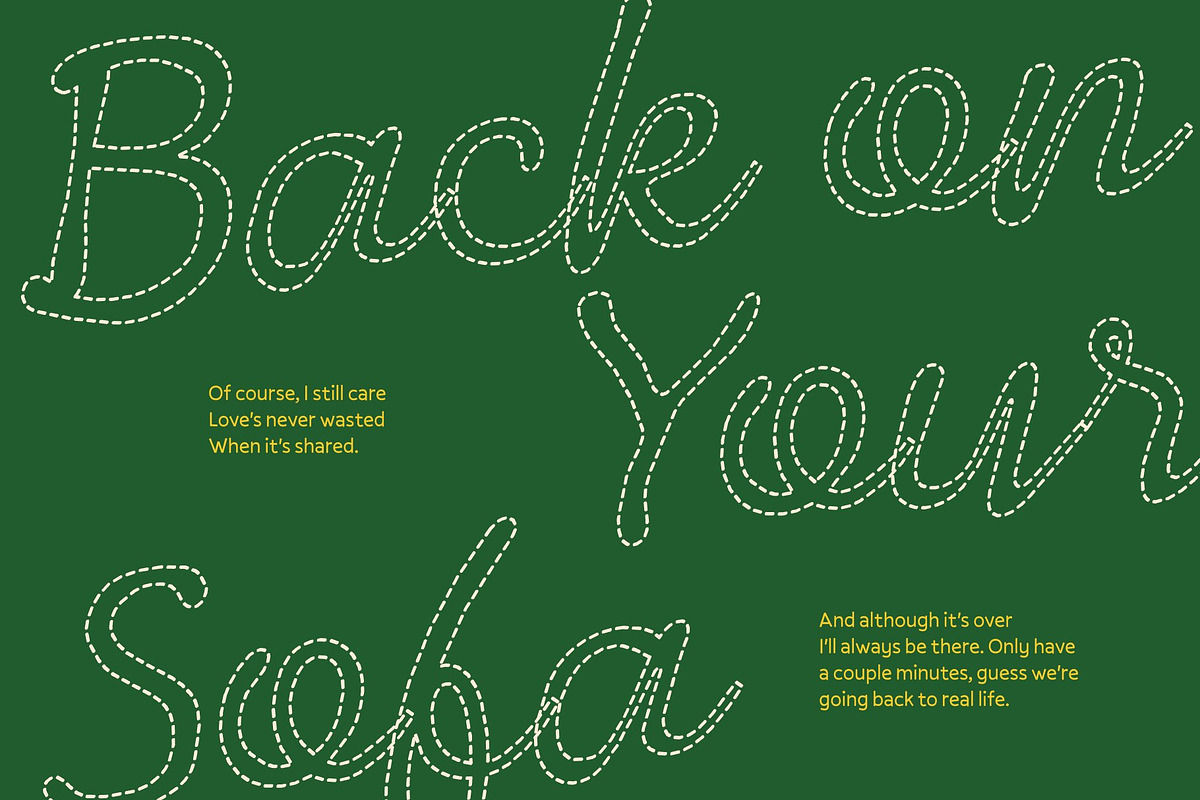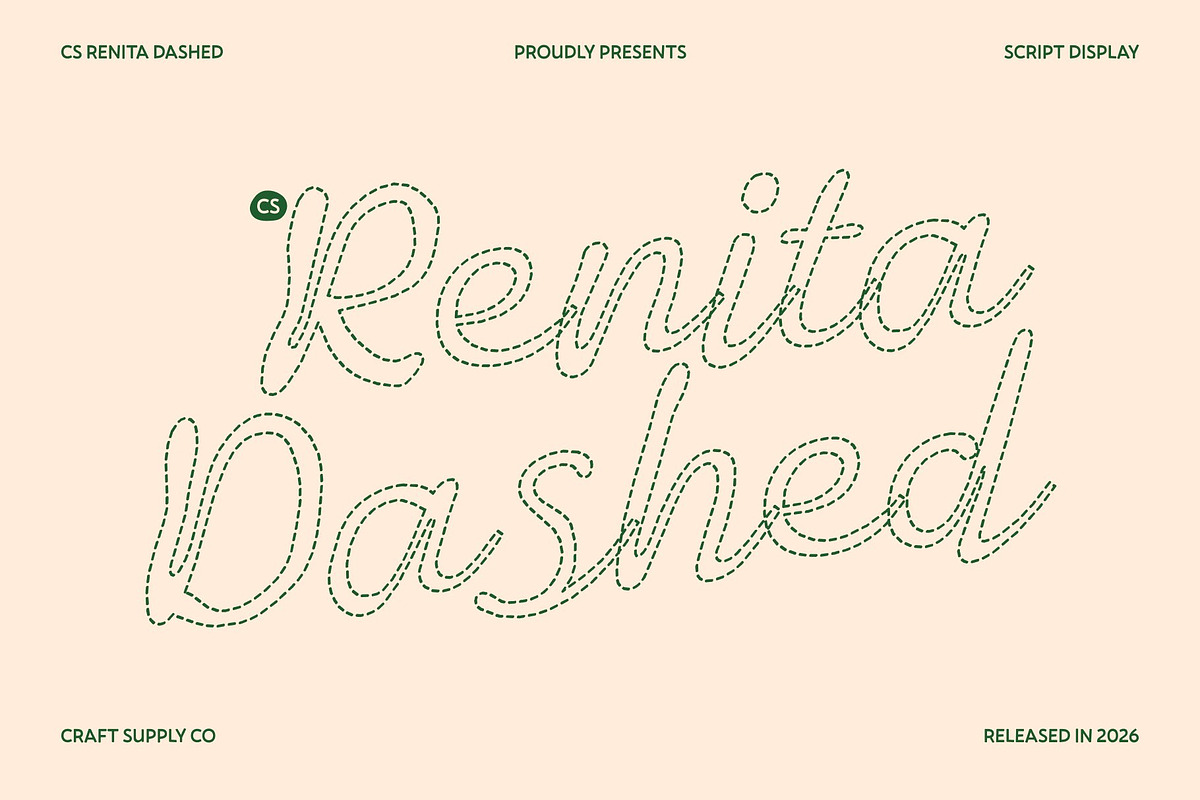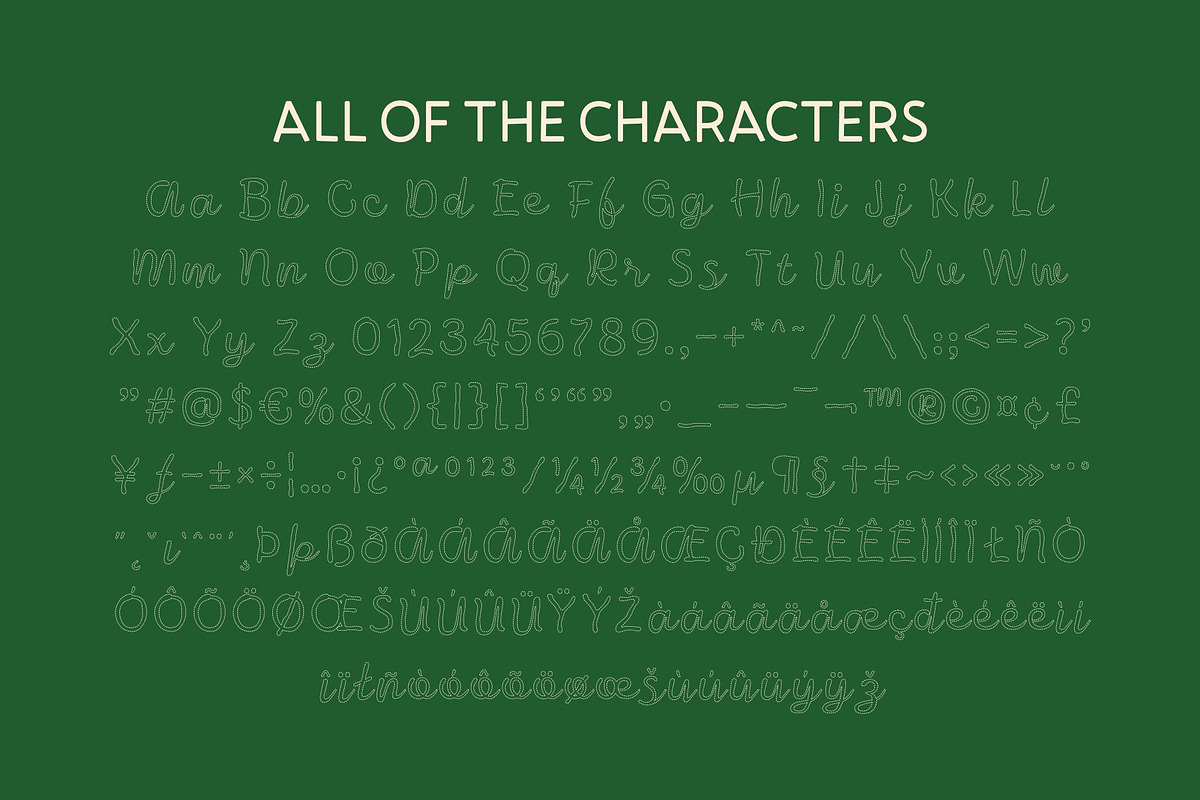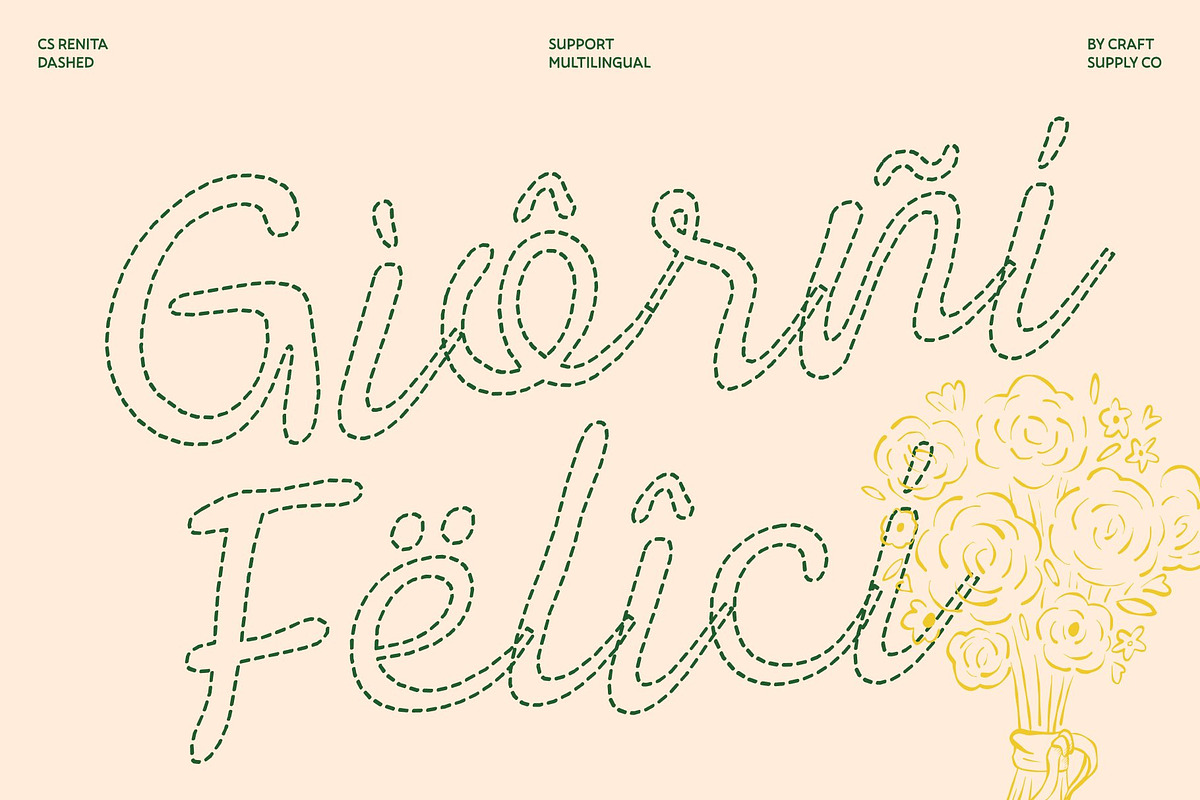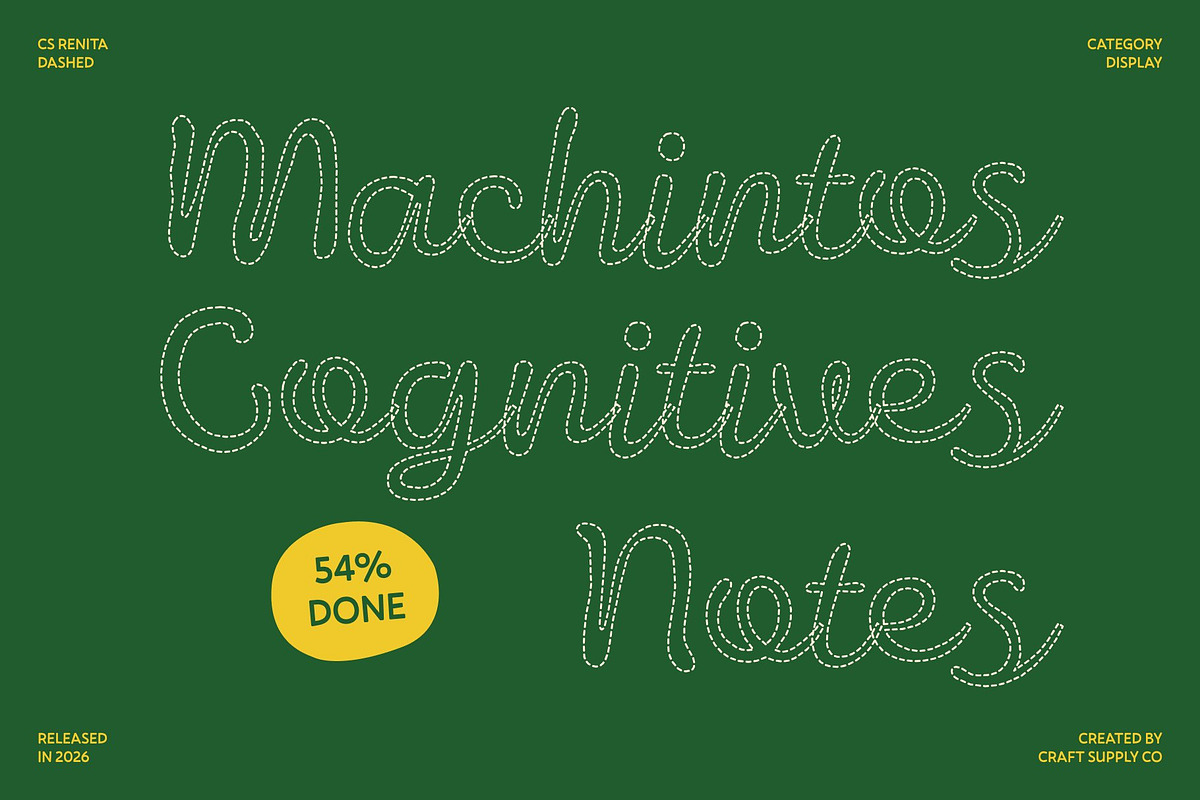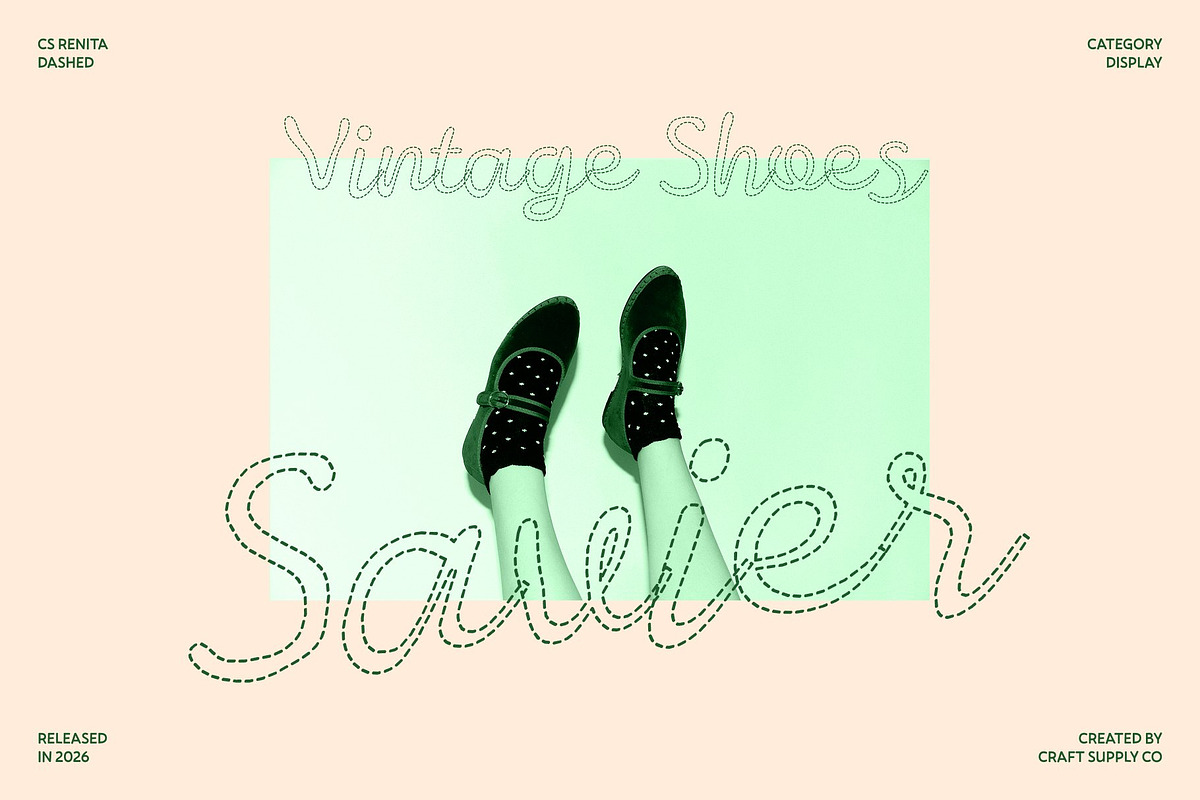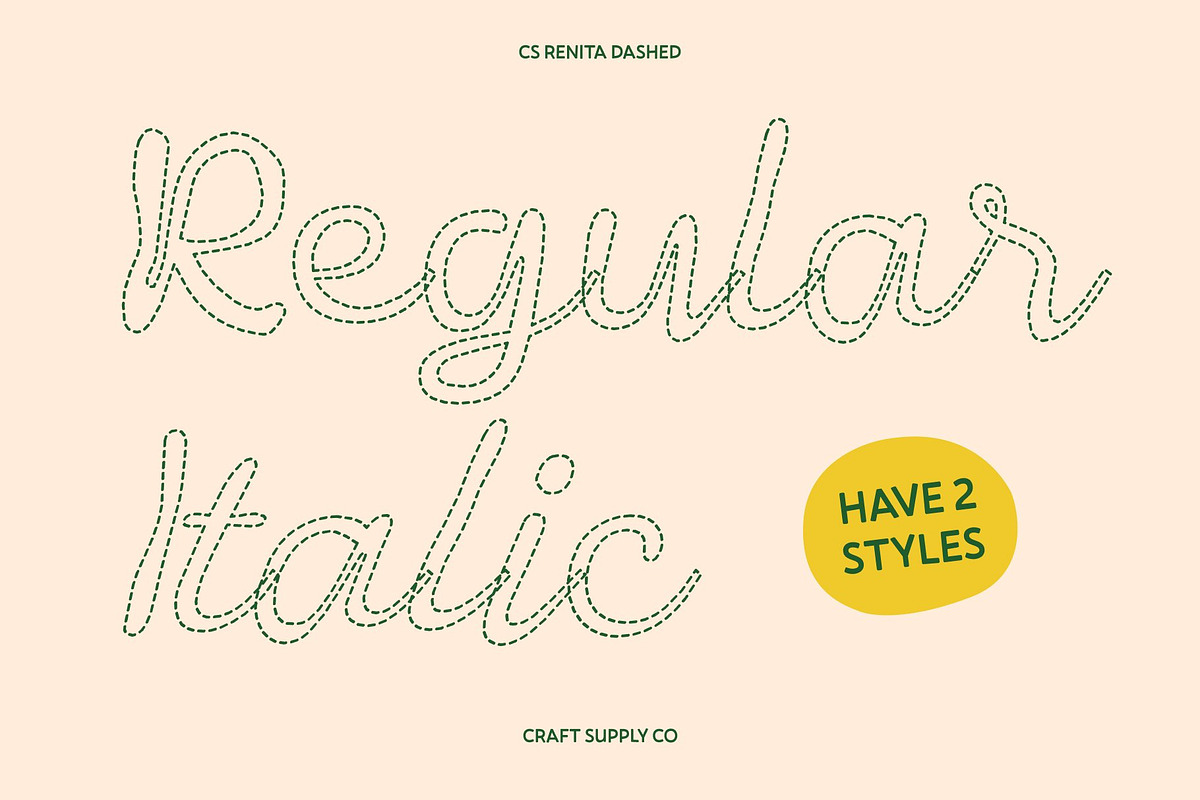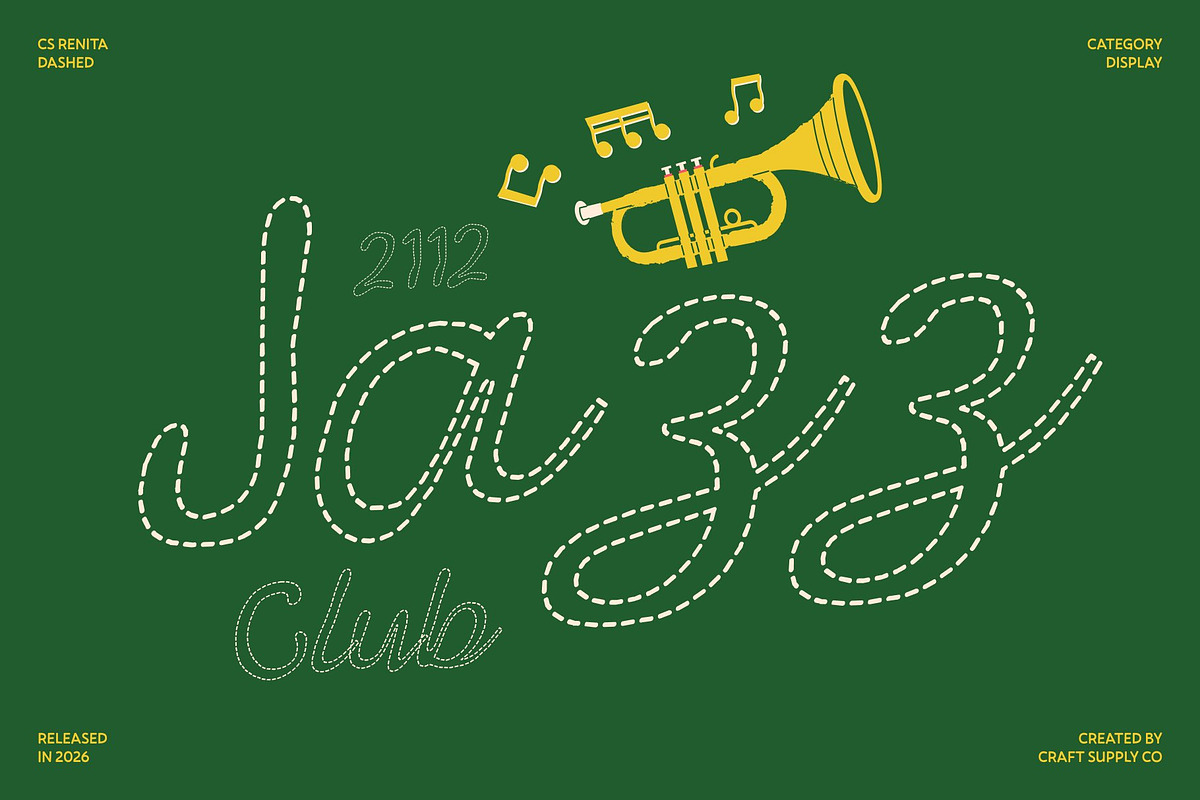
CS Renita Dashed
CS Renita Dashed – Script Font with Graceful Elegance
Flowing Script with Handwritten Charm This is a graceful script font that captures the beauty of natural handwriting through smooth, flowing strokes and elegant curves. The dashed detailing gives the letterforms a delicate handcrafted texture, adding lightness and artistic character while preserving its refined and stylish feel.
Graceful and Sophisticated Design Inspired by expressive penmanship, this font creates a sense of movement and harmony in every word. Its fluid connections and balanced proportions bring sophistication and charm, making it ideal for designs that need a soft, elegant, and personal touch.
Handwritten Curves with Luxury Appeal Each letter features refined curves that evoke authentic calligraphy. The dashed stroke style enhances the handcrafted aesthetic, giving your typography a luxurious yet approachable appearance that feels warm, romantic, and polished.
Perfect for Weddings and Fashion Branding From wedding invitations and event stationery to fashion branding and luxury editorials, this font adds timeless beauty to every project. It shines in logos, packaging, and elegant headlines, elevating designs with graceful expression and emotional warmth.
CS Renita Dashed Regular
CS Renita Dashed Italic